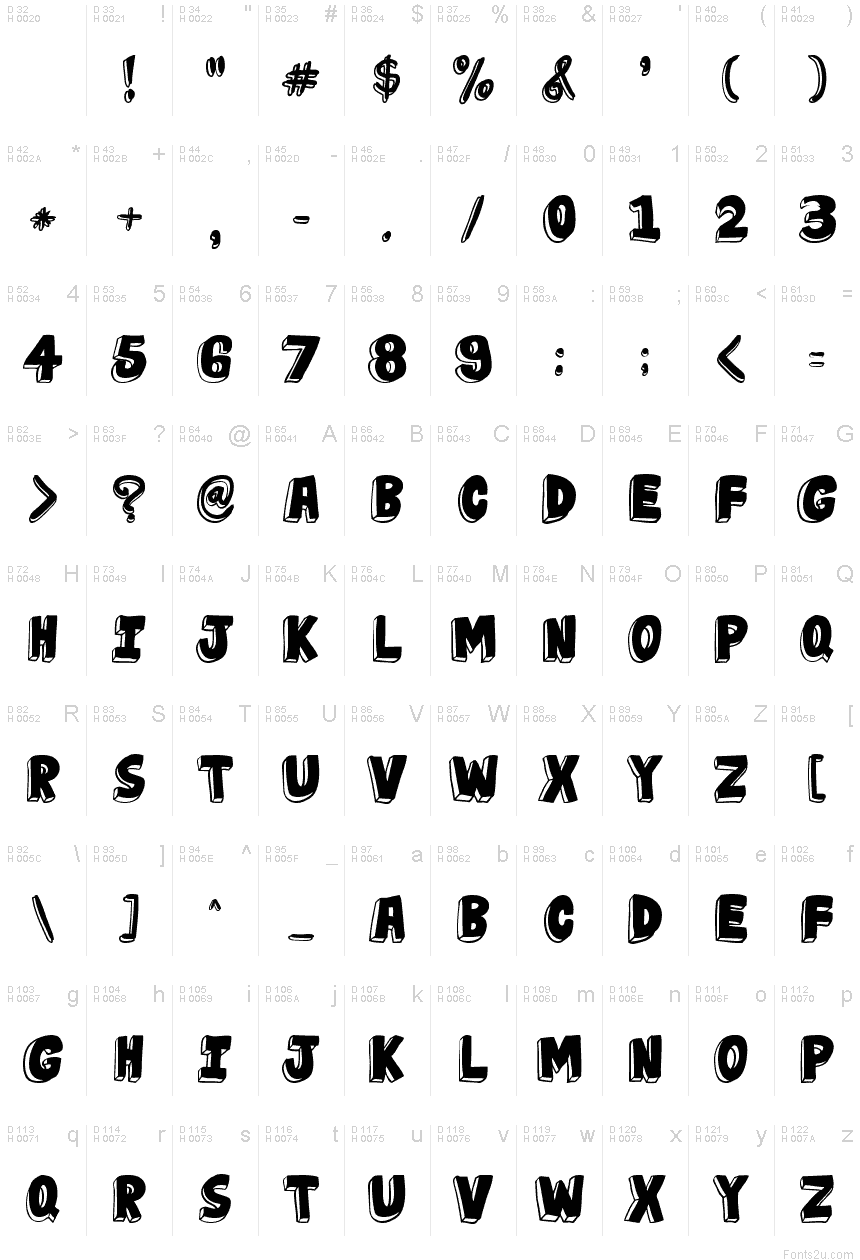
Jabjai Heavy by Kittiphat Sukamolson is a free cartoon display font with chunky, uneven capitals and a hand-cut silhouette. Solid letter shapes are broken by sharp inset planes that suggest folded paper or simple comic-book depth.
Its slapstick cartoon style suits children's entertainment, game graphics, and comedy posters. The letters feel drawn rather than engineered. On snack packaging or playful merchandise, the blocky forms can act like illustrated props, linking the wording to noisy action, pranks, and broad animated humor.